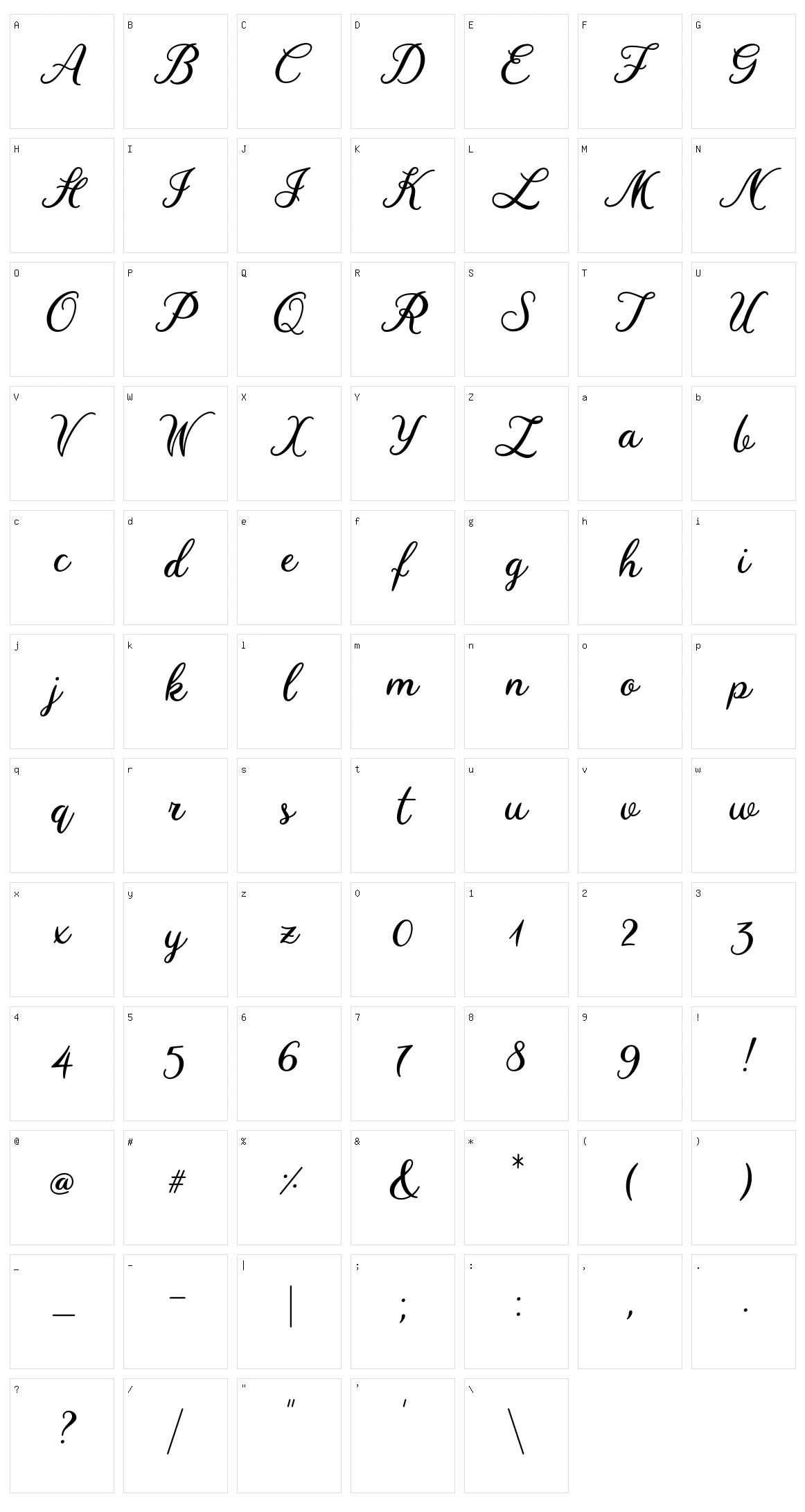
Wine Date
ÿþWine Date is the antecedent of  Wedding Rings , a cursive calligraphic script font without the swashes on the Uppercase letters and straight lowercase  p and  f . Nice choice for your creative projects such as
* logos,
* printed quotes,
* invitations,
* cards,
* Instagram posts.